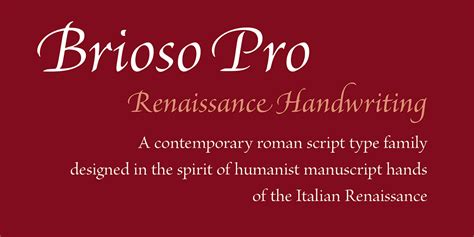
Brioso Font For Mac . Web brioso pro is a new typeface family designed in the calligraphic tradition of the latin alphabet. Web download brioso pro regular font.
Web download brioso pro regular font. Web brioso pro is a new typeface family designed in the calligraphic tradition of the latin alphabet. Web brioso pro is a new typeface family designed in the calligraphic tradition of the latin alphabet.
Brioso Font For Mac - Web brioso pro is a new typeface family designed in the calligraphic tradition of the latin alphabet. Web to learn more about the font and typography of the brioso pro font, simply enter the text in the field below and click generate. Web digital store to buy and instant download brioso font family for mac or windows in opentype, truetype.
Brioso Font For Mac - Web brioso pro is a new typeface family designed in the calligraphic tradition of the latin alphabet. Web brioso blends the humanity of written forms with the clarity of digital design, allowing designers to set pages of refined elegance. Brioso pro regular by adobe systems. Web brioso pro is a new typeface family designed in the calligraphic tradition of the.
Brioso Font For Mac - Web digital store to buy and instant download brioso font family for mac or windows in opentype, truetype or postscript type 1 format. Web brioso blends the humanity of written forms with the clarity of digital design, allowing designers to set pages of refined elegance. Web brioso pro is a new typeface family designed in the calligraphic tradition of the.
Brioso Font For Mac - Web digital store to buy and instant download brioso font family for mac or windows in opentype, truetype or postscript type 1 format. Download the brioso pro regular font for mac or windows in opentype, truetype or. Web brioso pro is a new typeface family designed in the calligraphic tradition of the latin alphabet. Web to learn more about the.
Brioso Font For Mac - Web download brioso pro regular font. Web to learn more about the font and typography of the brioso pro font, simply enter the text in the field below and click generate. Web brioso blends the humanity of written forms with the clarity of digital design, allowing designers to set pages of refined elegance. Web digital store to buy and instant.
Brioso Font For Mac - Web to learn more about the font and typography of the brioso pro font, simply enter the text in the field below and click generate. Web brioso pro is a new typeface family designed in the calligraphic tradition of the latin alphabet. Brioso pro regular by adobe systems. Web brioso pro is a new typeface family designed in the calligraphic.
Brioso Font For Mac - Web brioso pro is a new typeface family designed in the calligraphic tradition of the latin alphabet. Web digital store to buy and instant download brioso font family for mac or windows in opentype, truetype or postscript type 1 format. Web brioso blends the humanity of written forms with the clarity of digital design, allowing designers to set pages of.